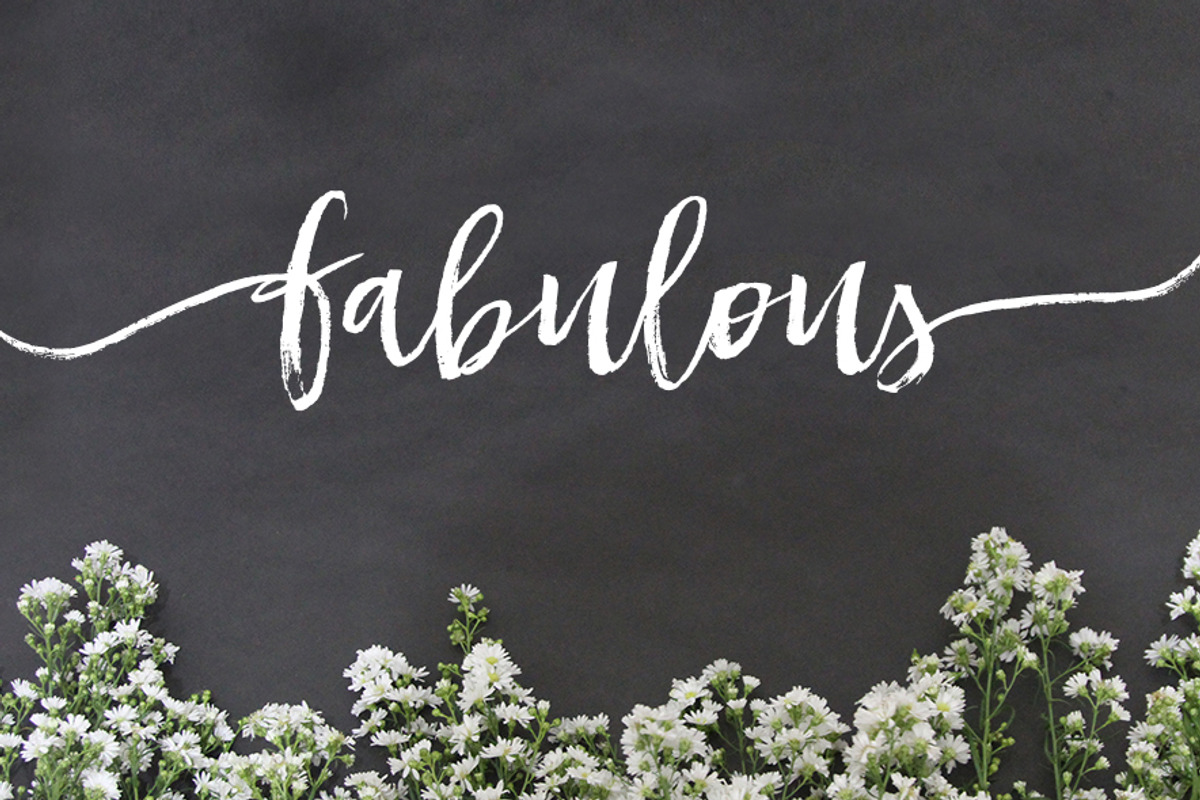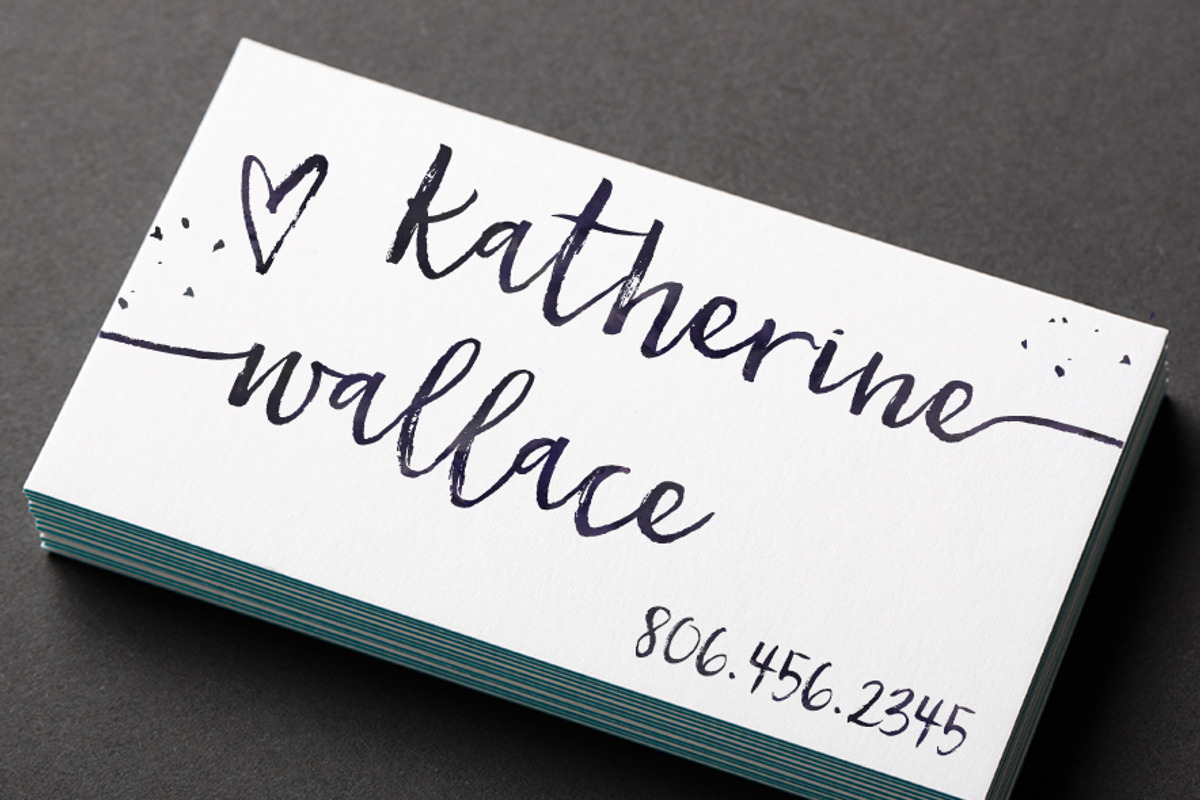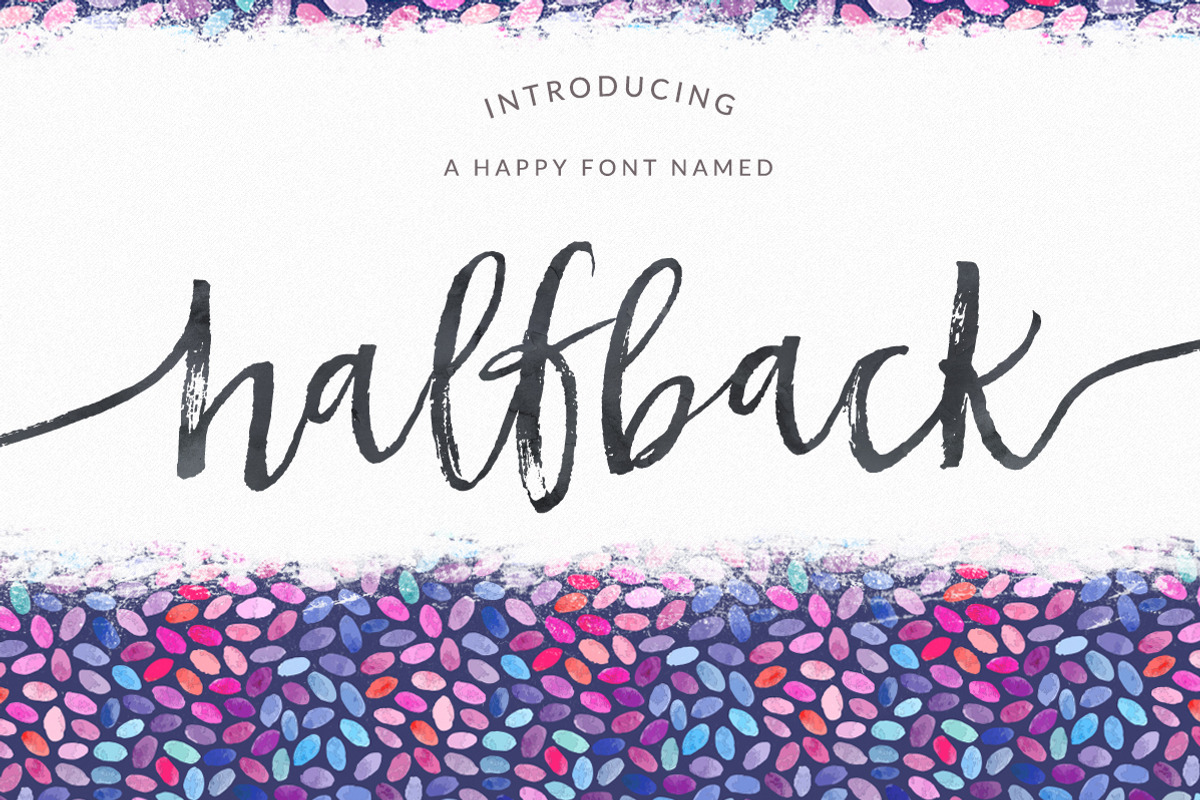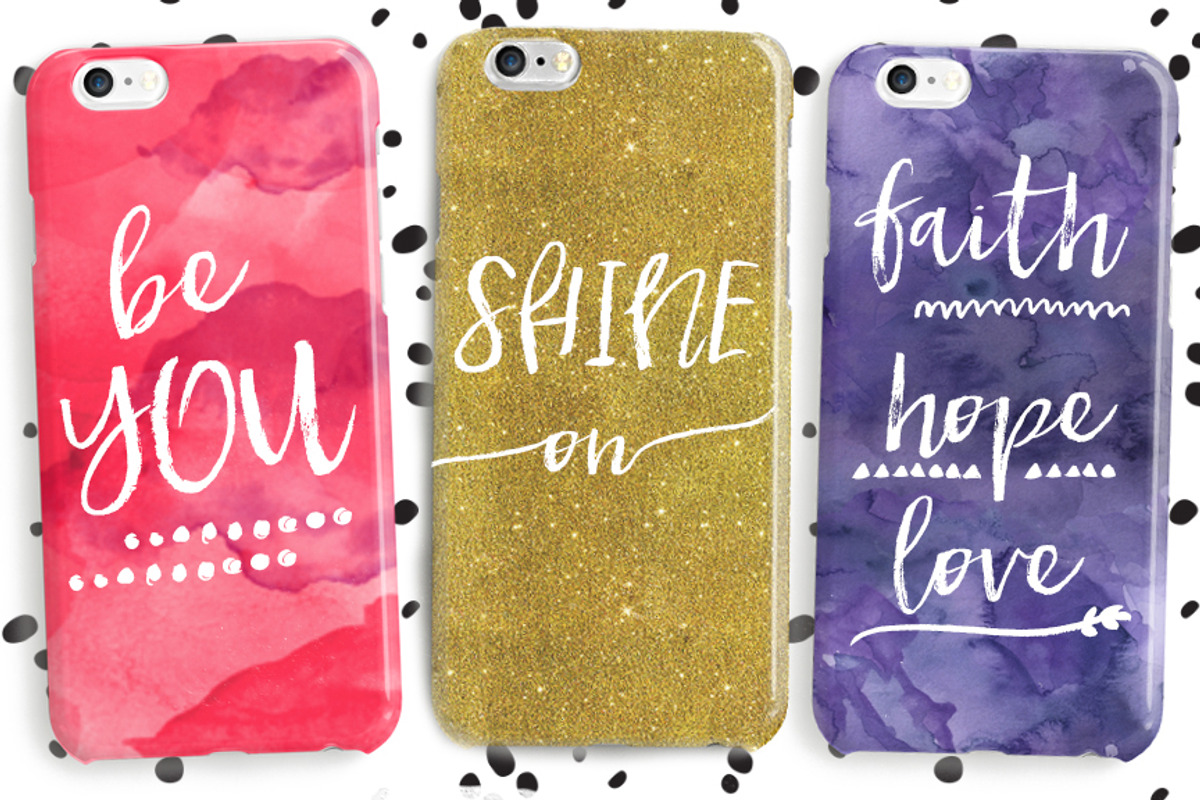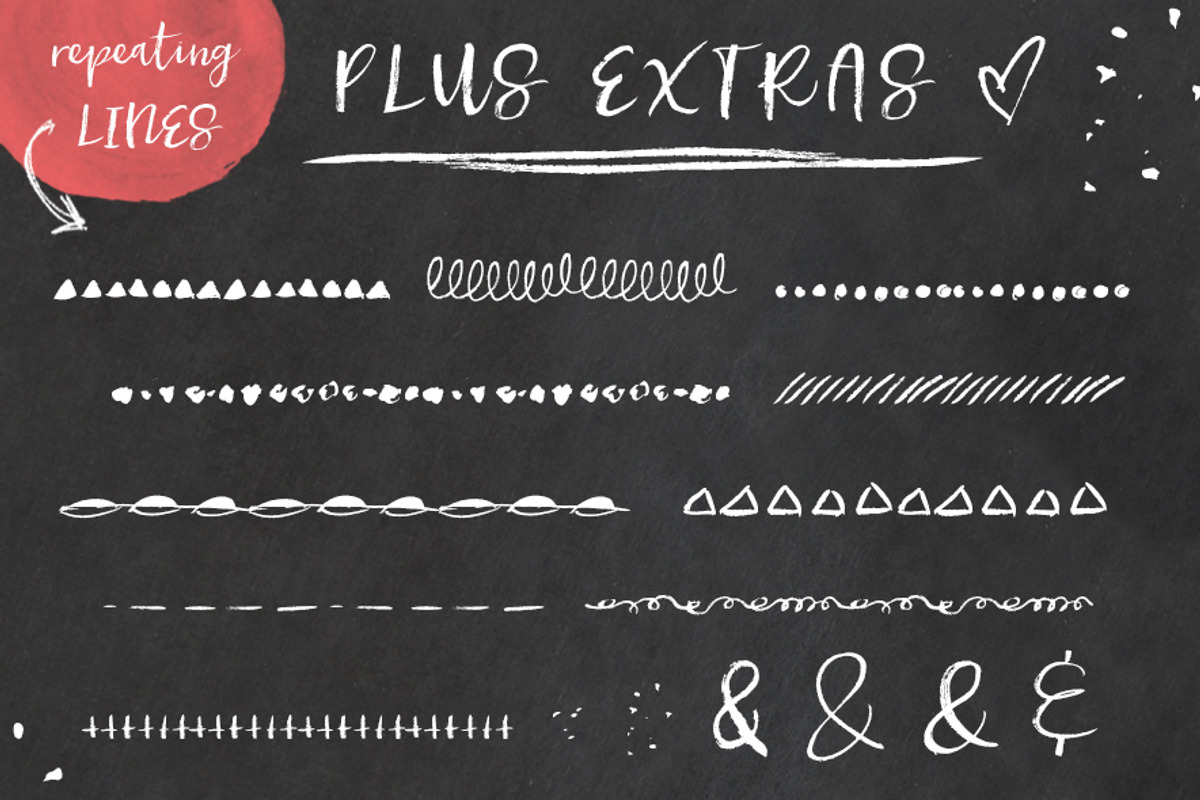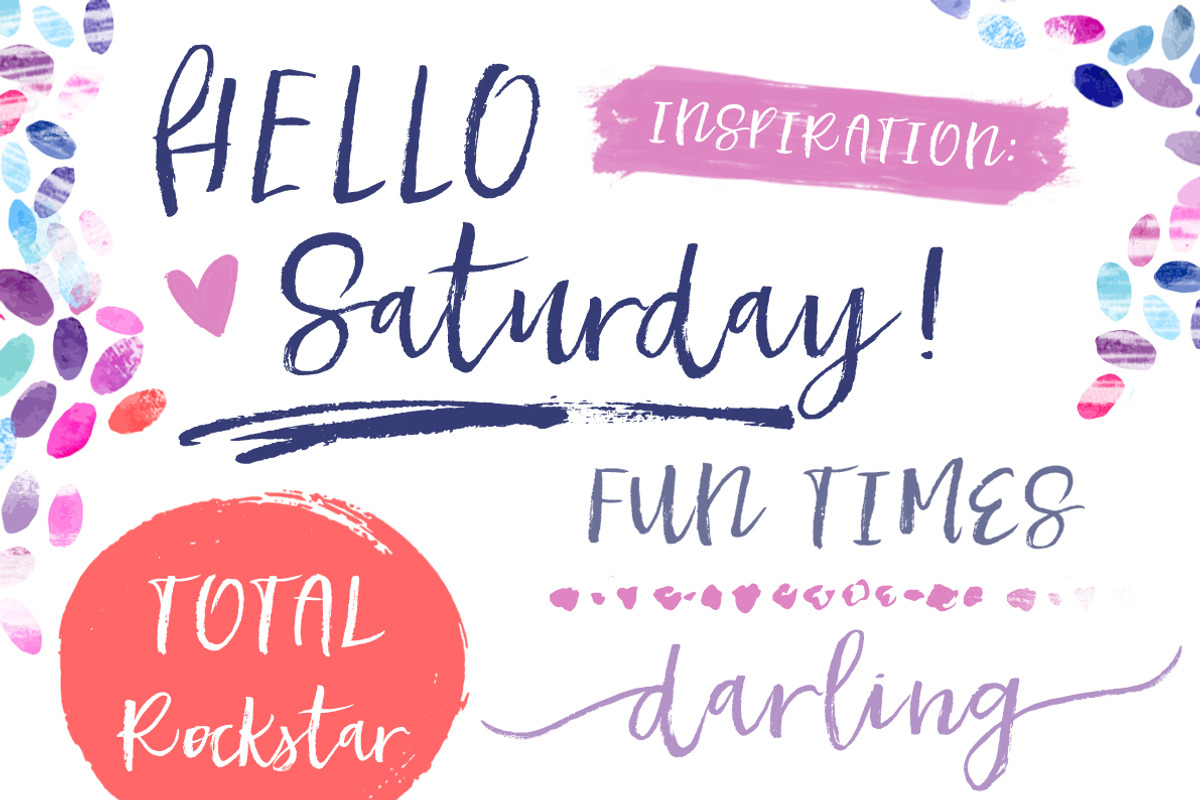
Halfback - A Dry Brushed Script Font
Halfback - A Dry Brushed Script Font by Angie Makes is a font selected for branding, posters, packaging, typography.
- Halfback Regular- A happy little dry brushed font
- Open Type features include contextual alternates and ordinals.
- Invitations
- Blog Headers
- Tangible Goods
- Tattoos
- Type lowercase letters a-z for beginning swashes and uppercase A-Z for end swashes.
- Open Type features include contextual alternates and ordinals.